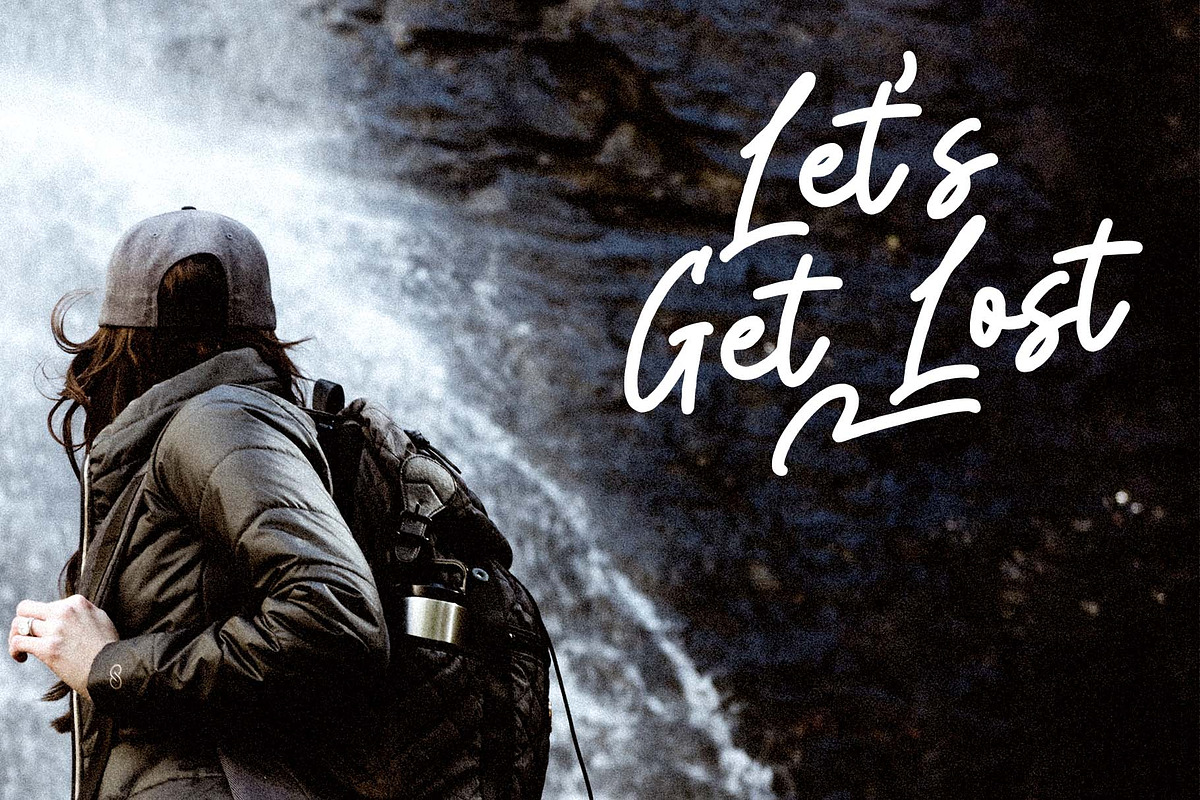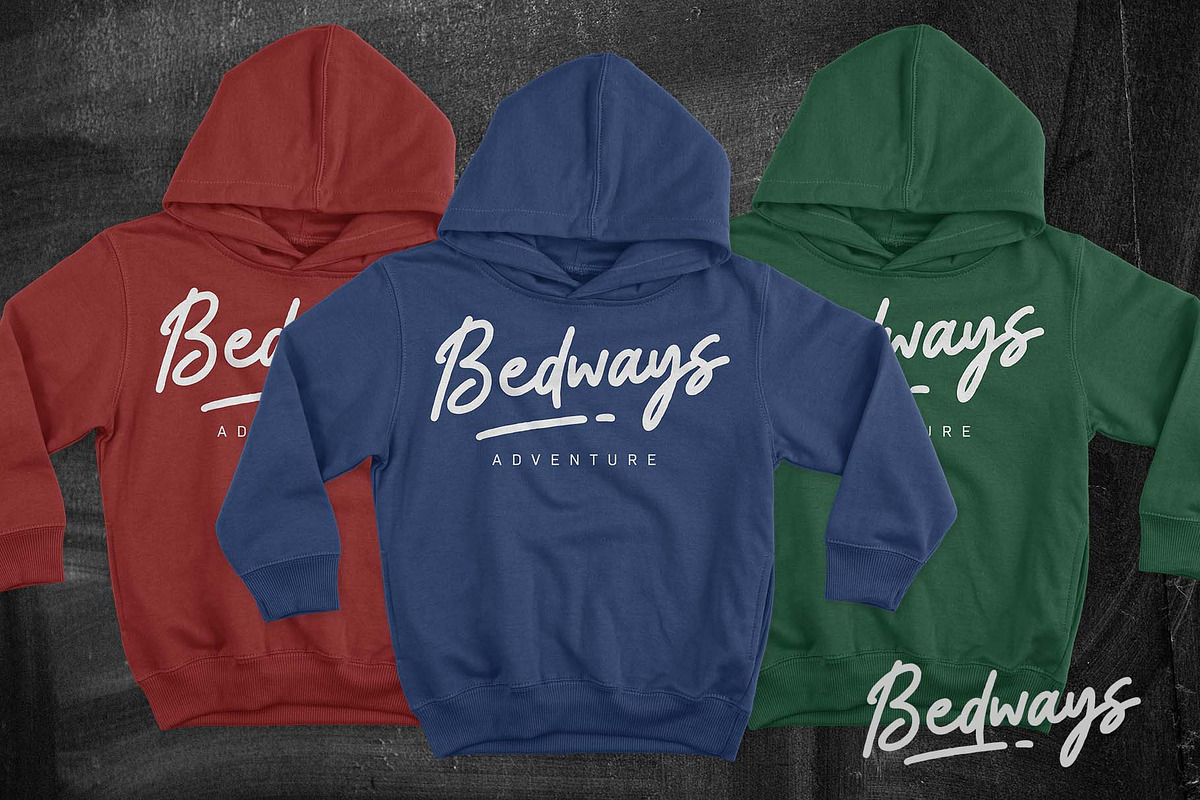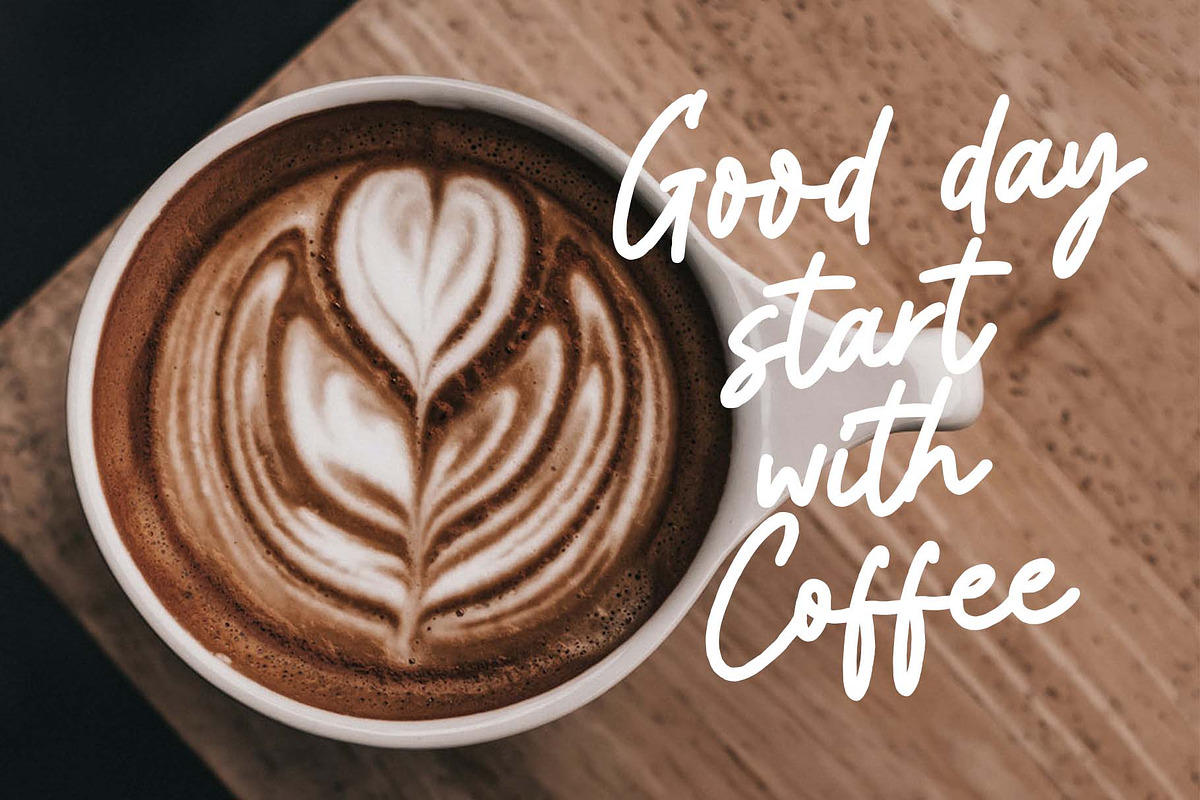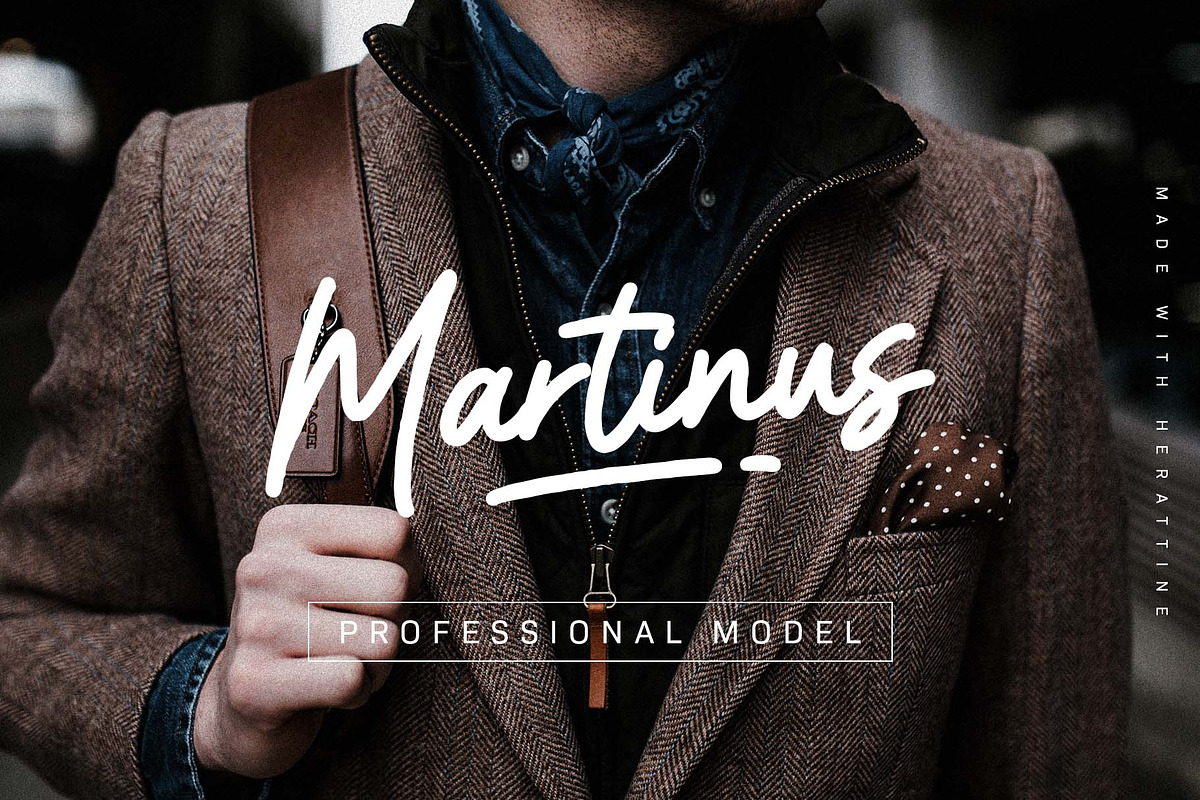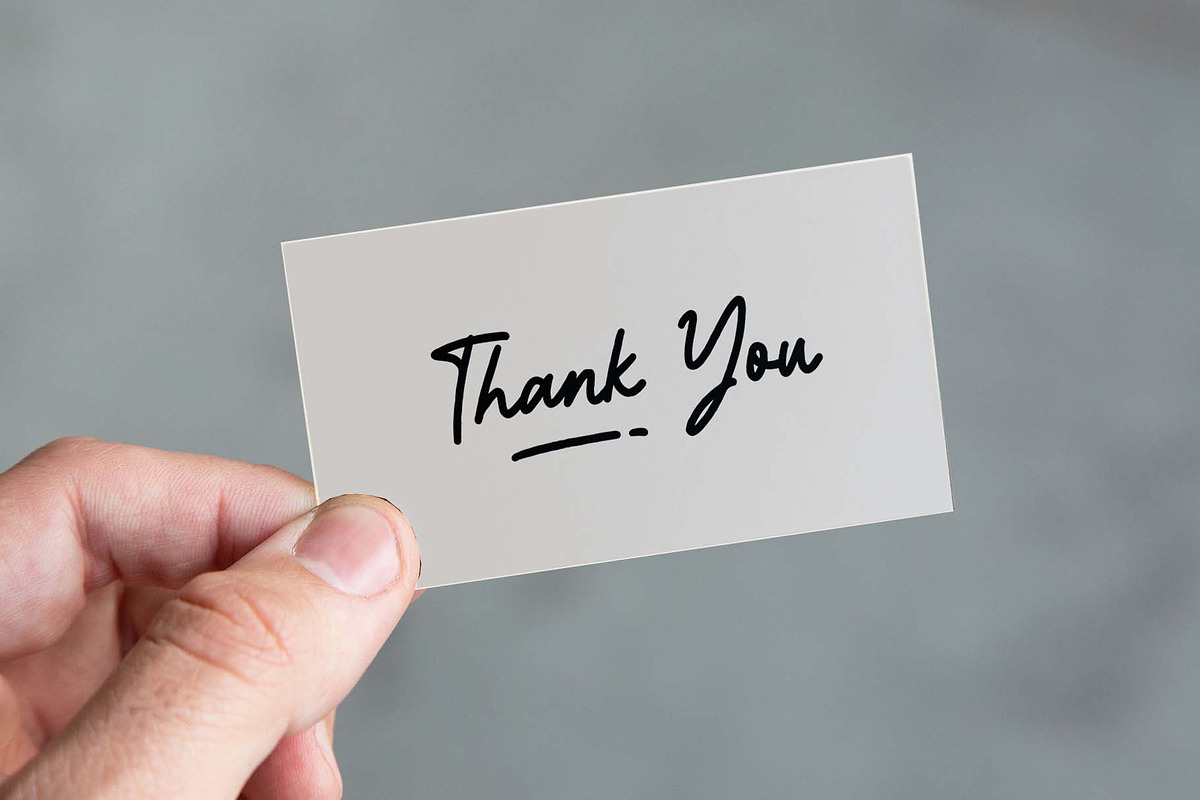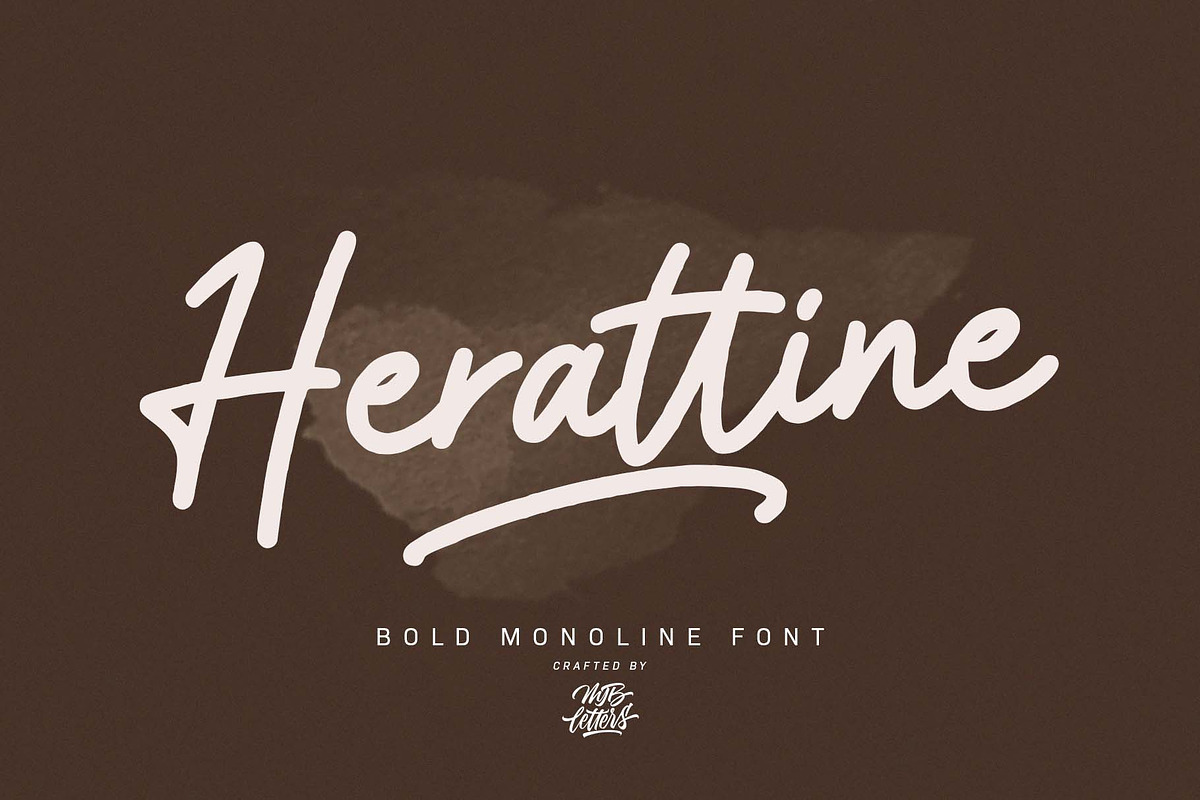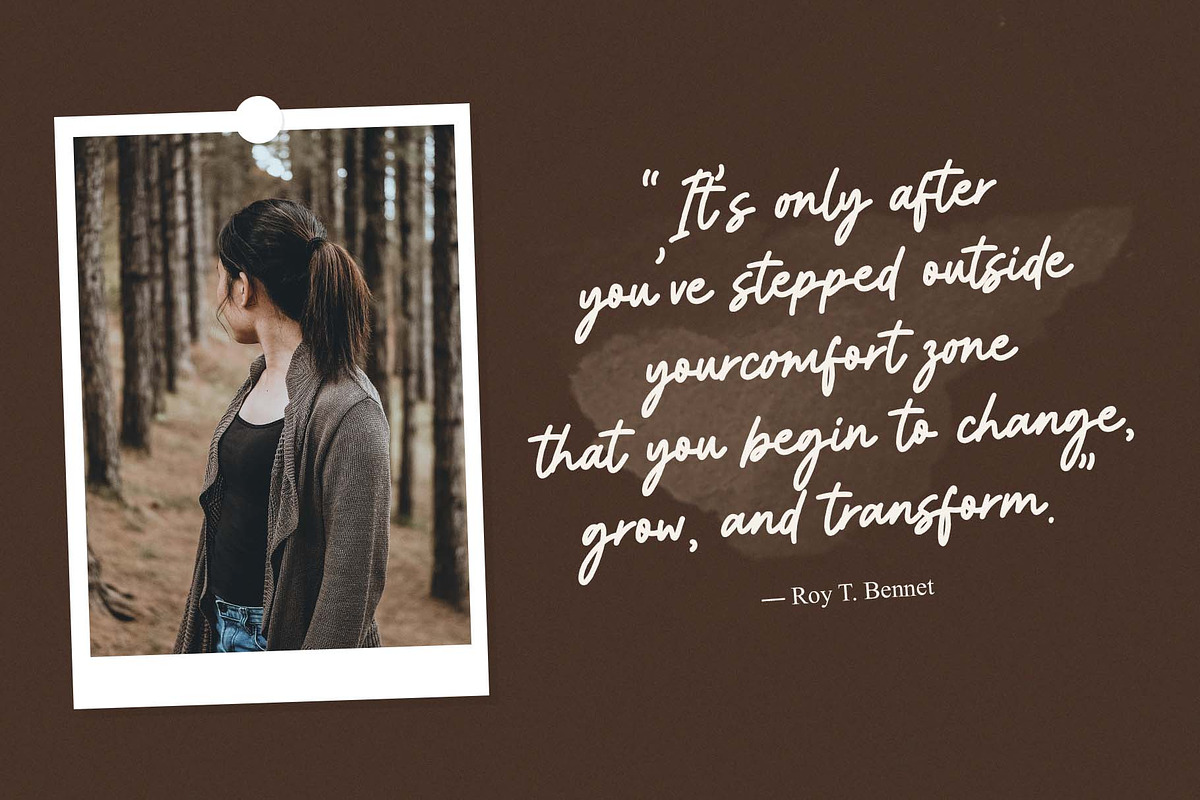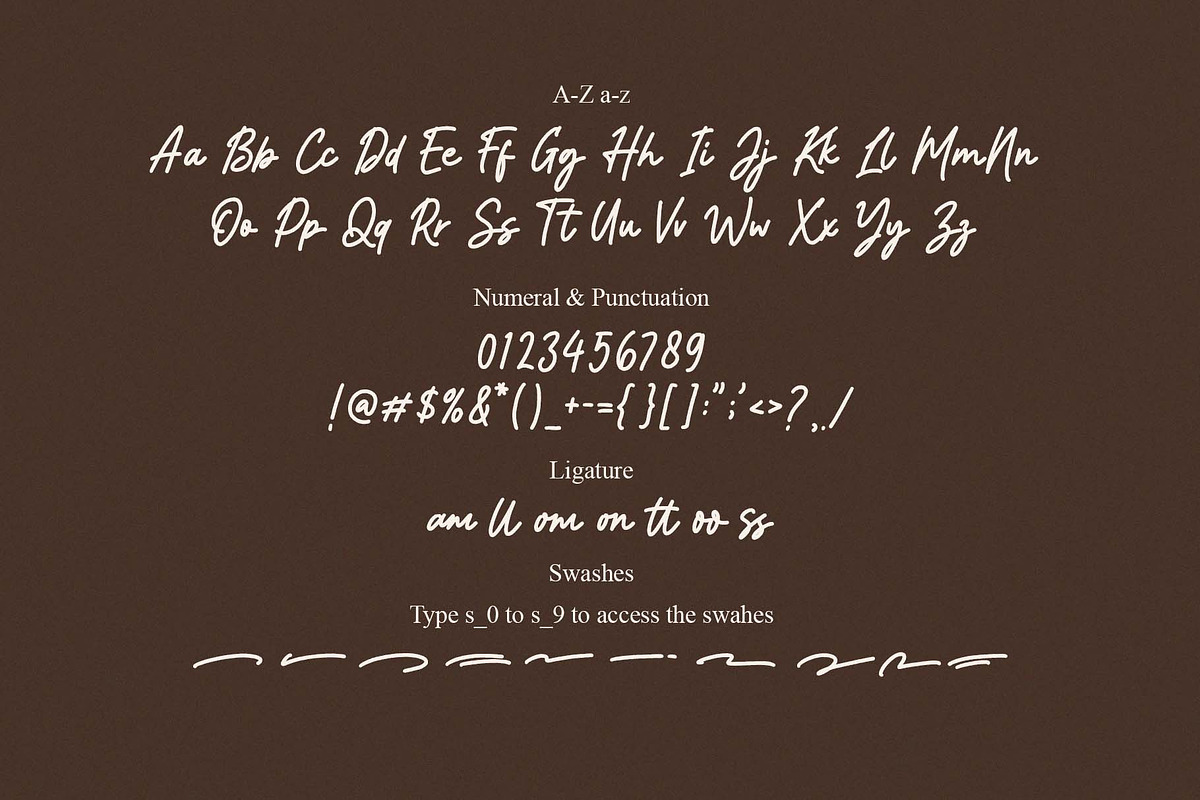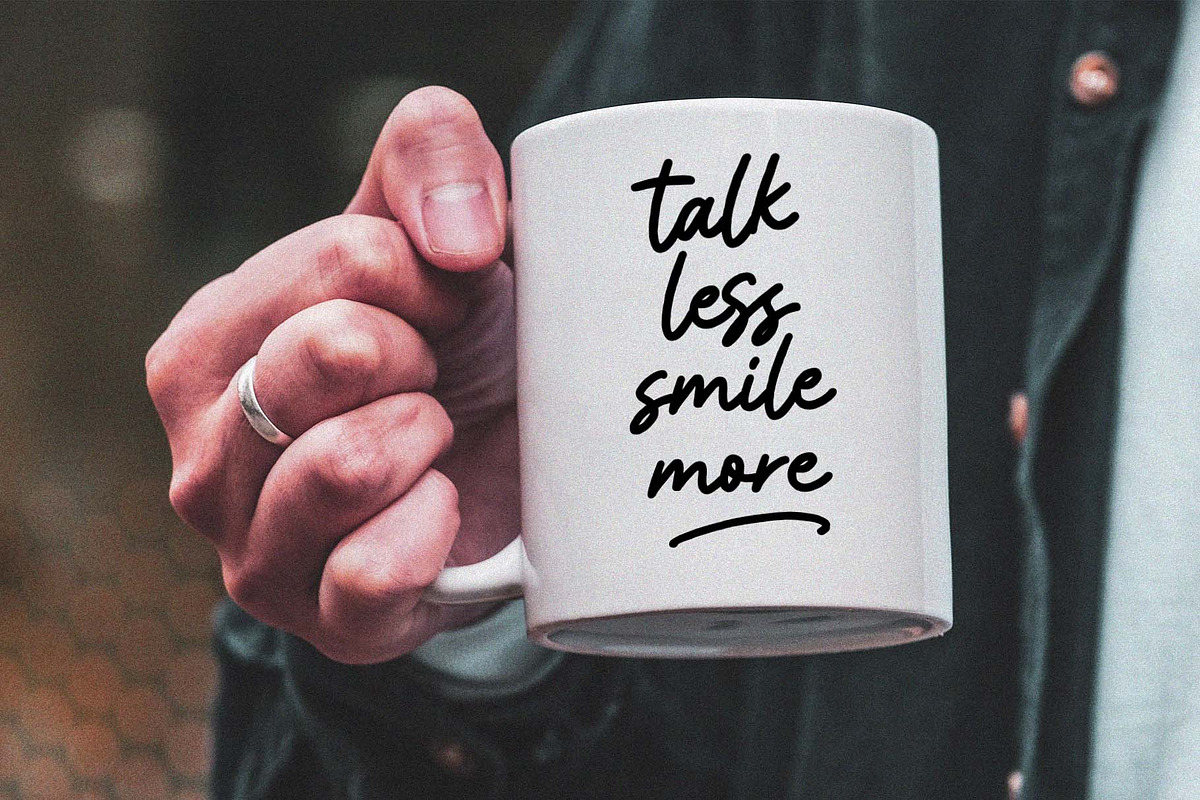
Herattine | Monoline Font
Herattine is a beautiful, monoline font that will add a ton of charm and style to your works. This is a clean calligraphy font and excels as the focal point to your work.